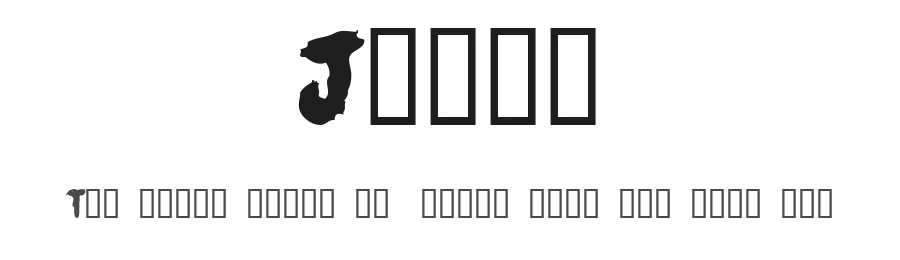
About Joker Font
Joker is a script & handwritten font designed by Johan Waldenström. It includes 49 glyphs, a regular weight, and TTF (TrueType) format. Joker is free to download; check the license details on this page before commercial use. Script & handwritten fonts like Joker work best for wedding invitations, greeting cards, signatures, and elegant branding.
Joker Font is a script font that shines as a display or heading face. Pair it with a clean sans-serif or serif font for body text — the contrast creates a clear hierarchy while the two styles stay balanced and easy to read.
Joker Font
Joker Font is a script handwritten typeface by Johan Waldenström, ideal for logos, invitations, branding, and creative projects.